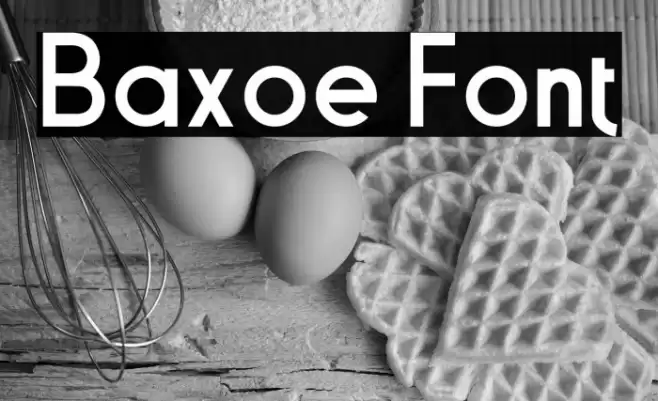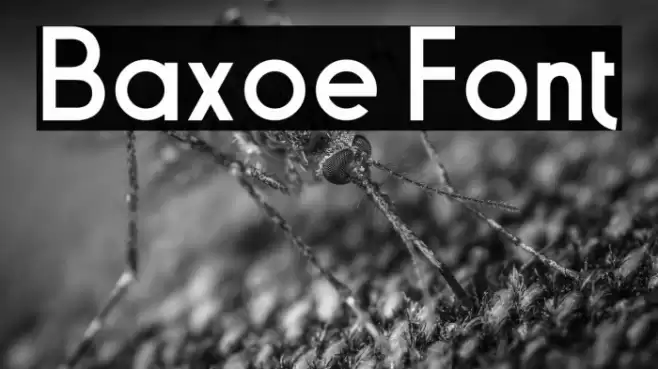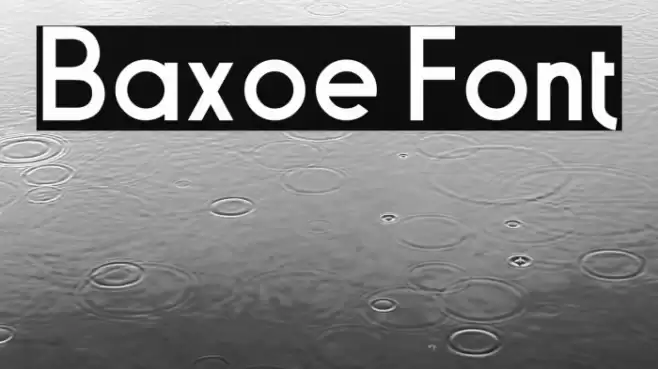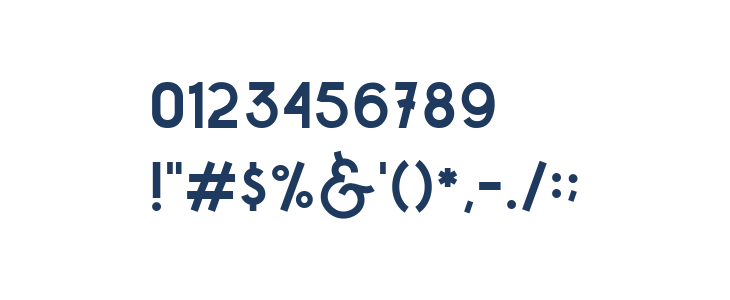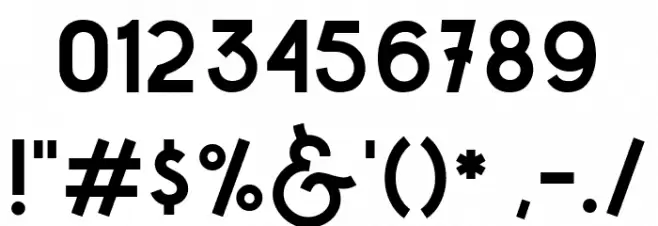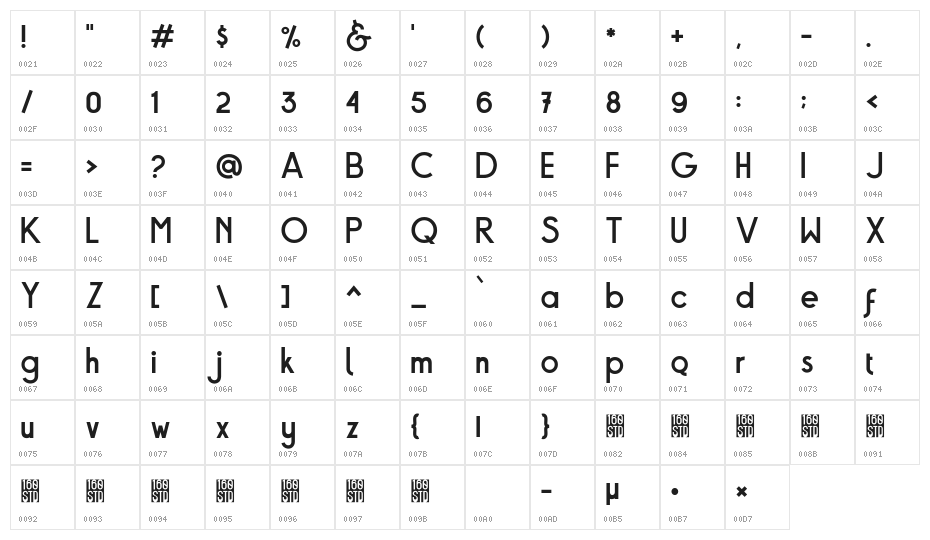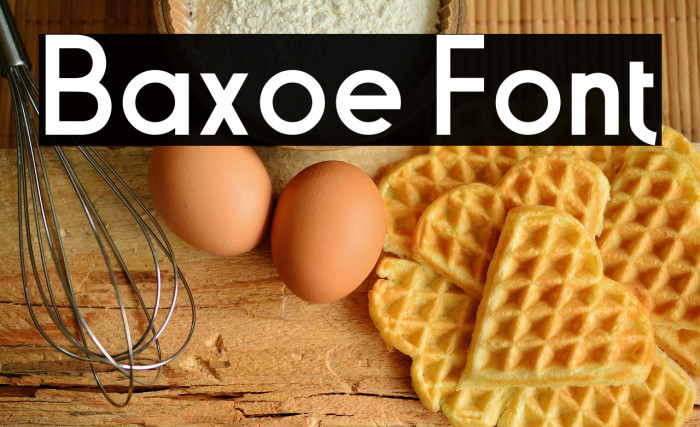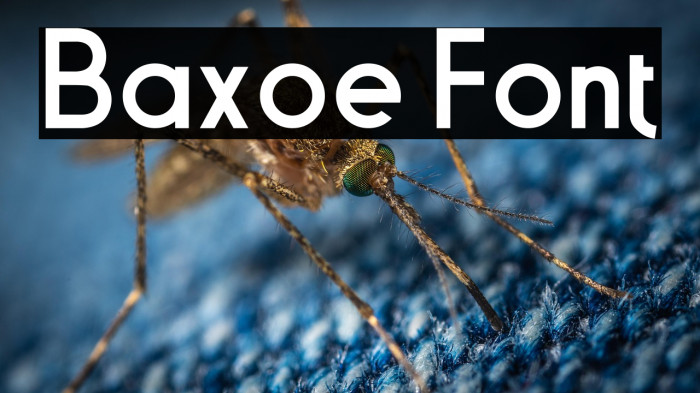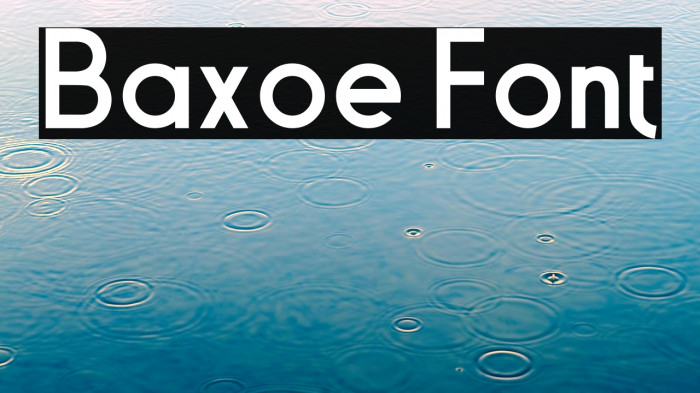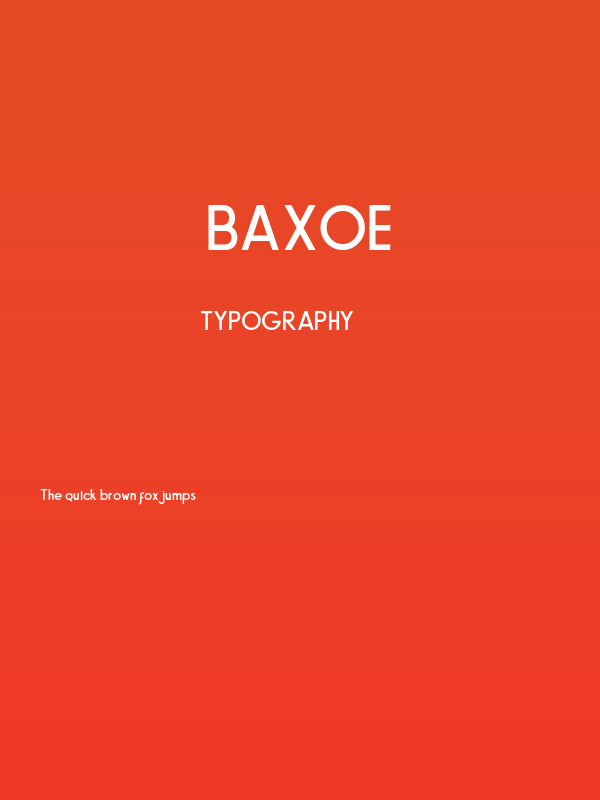
Baxoe Font
Baxoe Description
This font features a clean and modern sans-serif style with geometric influences. The characters are well-proportioned, offering a balanced and harmonious appearance. The uppercase letters are bold and assertive, while the lowercase letters maintain a friendly and approachable look. The numerals are clear and easily distinguishable, making them suitable for various applications. Special characters are designed with the same attention to detail, ensuring consistency across the font. The overall design is versatile, making it suitable for both digital and print media.
A modern, geometric sans-serif font with balanced proportions from Regular fonts.
- Proposed Projects: Ideal for branding, advertising, web design, and editorial projects.
- Use Case: Headlines, Logos, Branding